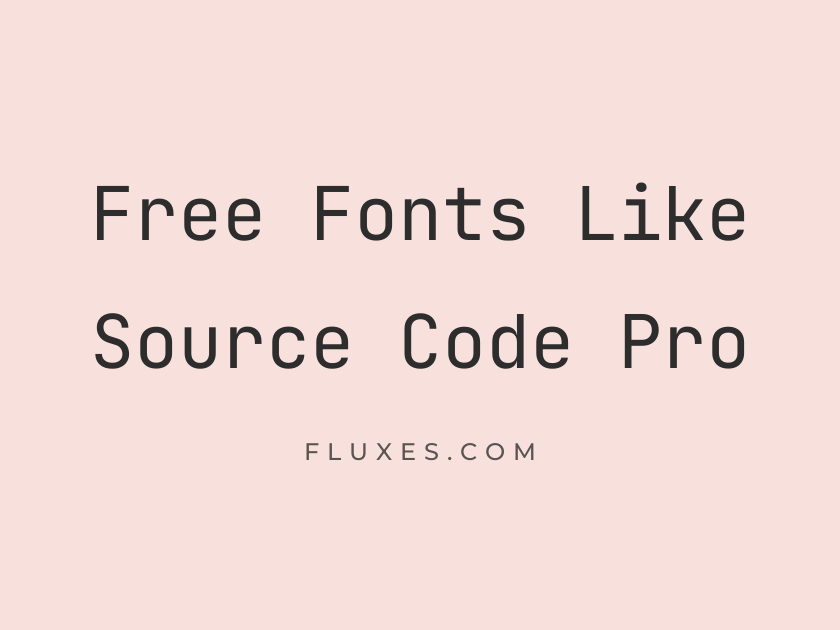
15 Best Free Fonts Similar to Source Code Pro
Source Code Pro has been a default choice for developer tools, documentation sites, and code blocks for years, and for good reason: it is clean, legible at small sizes, and distinguishes easily between characters like 1, l, and I. But it is not the only free monospace option worth knowing, and plenty of designers looking for a Source Code Pro alternative want something with more personality, better ligature support, or a slightly different rhythm on the screen. The fonts below all come from Google Fonts, cost nothing to license, and hold up well in code editors, terminals, technical documentation, and the occasional display use where a monospaced grid adds a coded, technical feel.
Built by a company that makes IDEs for a living, this typeface was engineered specifically to reduce eye strain during long coding sessions. Its tall x-height and generous letter spacing make dense code blocks easier to scan, and it includes ligatures for common programming operators. It has quickly become one of the most requested Source Code Pro alternatives for developer portfolios and technical blogs.
Fira Code
⚠ Font Specimen: invalid or missing font nameFira Code took the ligature idea further than almost any other free monospace font, turning arrows, equality checks, and comparison operators into single connected glyphs when a code editor supports the feature. Outside of an editor context those ligatures do not render, so in a plain HTML code block it behaves like a solid, no-nonsense monospace face. It pairs naturally with Fira Sans for sites that mix prose and code samples.
Commissioned as part of IBM’s corporate type family, Plex Mono carries a slightly more designed, humanist feel than many coding fonts, with subtle warmth in its curves. It works well for technical documentation and dashboards where you want code-like precision without a purely mechanical look. Plex Mono pairs cleanly with IBM Plex Sans and IBM Plex Serif if a project needs a full type system.
As the monospaced companion to Android’s default typeface, Roboto Mono is built for interface consistency more than typographic flair. It is a dependable, slightly narrow choice for code snippets embedded in product UI, terminals, or settings panels where the rest of the interface already uses Roboto.
Space Mono brings a retro, slightly eccentric character that most coding fonts avoid, with quirky curves on letters like the lowercase a and unusual proportions throughout. It is a strong pick for developer portfolios, hackathon branding, or tech products that want a nostalgic, mechanical-typewriter mood. At very small sizes in dense code it can read as less neutral than something like Roboto Mono or JetBrains Mono, so it suits headlines and short snippets better than full source listings.
Inconsolata
One of the earliest free monospace fonts designed expressly for source code, Inconsolata has a long track record in terminals, editors, and code blocks across the web. Its narrow, restrained letterforms keep long lines of code compact without feeling cramped.
Ubuntu Mono
Ubuntu Mono grew out of the same type family that defines the look of Ubuntu Linux’s interface and terminal, so it carries an immediately recognizable open-source, command-line feel. It reads well in terminal simulations, CLI documentation, and anywhere a project wants to nod to its Linux roots.
Cousine
Cousine was designed as a metrically compatible alternative to Courier New, meaning it occupies the same character widths while looking considerably more refined. That makes it a practical substitute in legacy documents or templates originally built around Courier New that need a cleaner, more modern face without reflowing layout.
PT Mono
Developed in Russia as part of the PT type family, PT Mono offers broad Cyrillic support alongside Latin characters, making it a genuinely useful choice for multilingual technical projects. Its even, sturdy strokes give it a slightly more formal tone than typical coding fonts.
Overpass Mono
Overpass Mono exists as the fixed-width sibling to the Overpass family, itself inspired by U.S. highway signage. For teams already using Overpass for body text and UI, dropping in Overpass Mono for code blocks or terminal output keeps the whole system visually unified.
Source Code Pro remains a solid default, but the free monospace fonts above give designers and developers real flexibility, whether the goal is tighter ligature support, a distinct brand voice, or simply a fresh look for the next project’s code blocks.